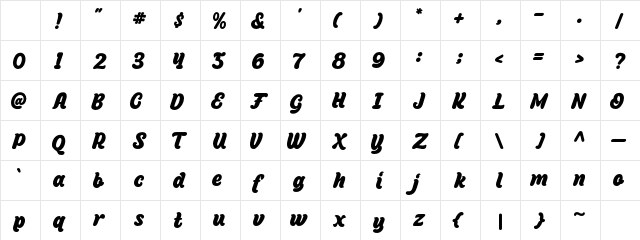
Ohleys is a composed and adaptable typeface that performs quietly and consistently across a wide range of design contexts.
Pro Tip: Use Ohleys in both headline and body roles to test its range before committing to a single application.